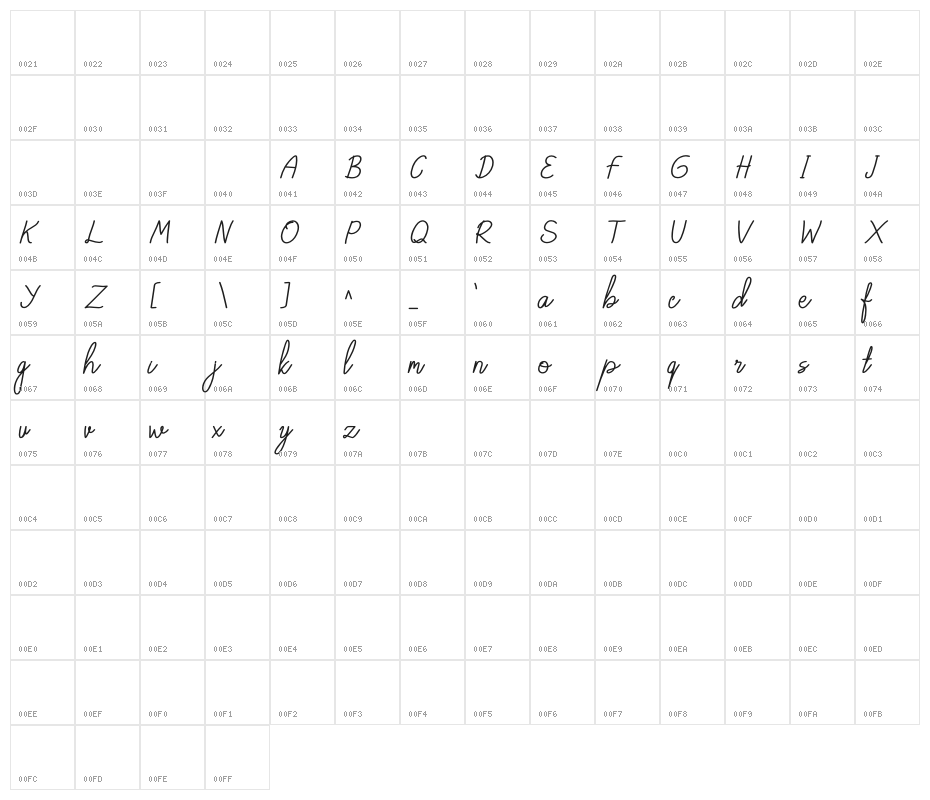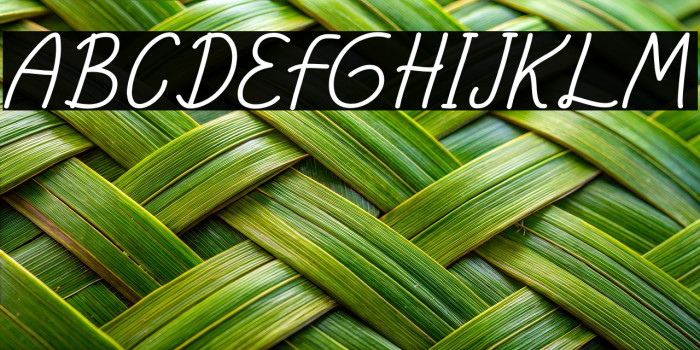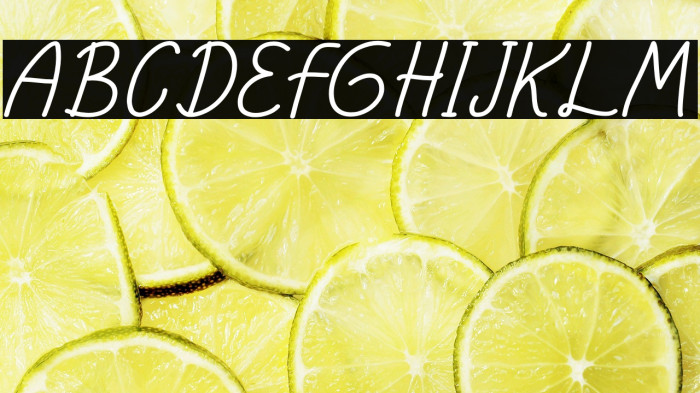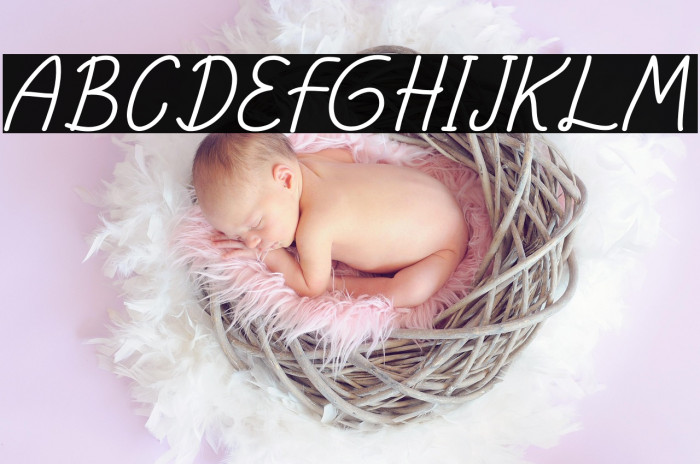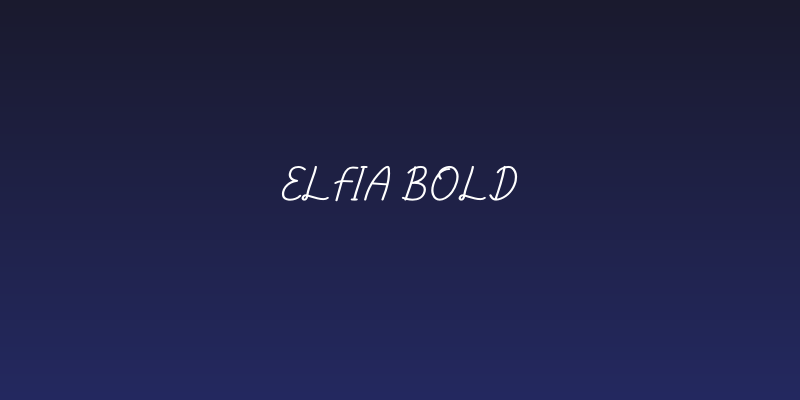
elfia Bold Font
elfia Bold Description
This font features a flowing, cursive style that exudes elegance and sophistication. The uppercase letters are tall and slender, with smooth curves and a slight slant, giving them a graceful appearance. The lowercase letters are more compact, maintaining the same fluidity and connectedness, which is characteristic of cursive handwriting. The strokes are consistent in width, providing a harmonious and balanced look. This font is ideal for projects that require a personal touch or a sense of refinement.
| Proposed Projects | Ideal for wedding invitations, greeting cards, personal branding, and elegant logos. |